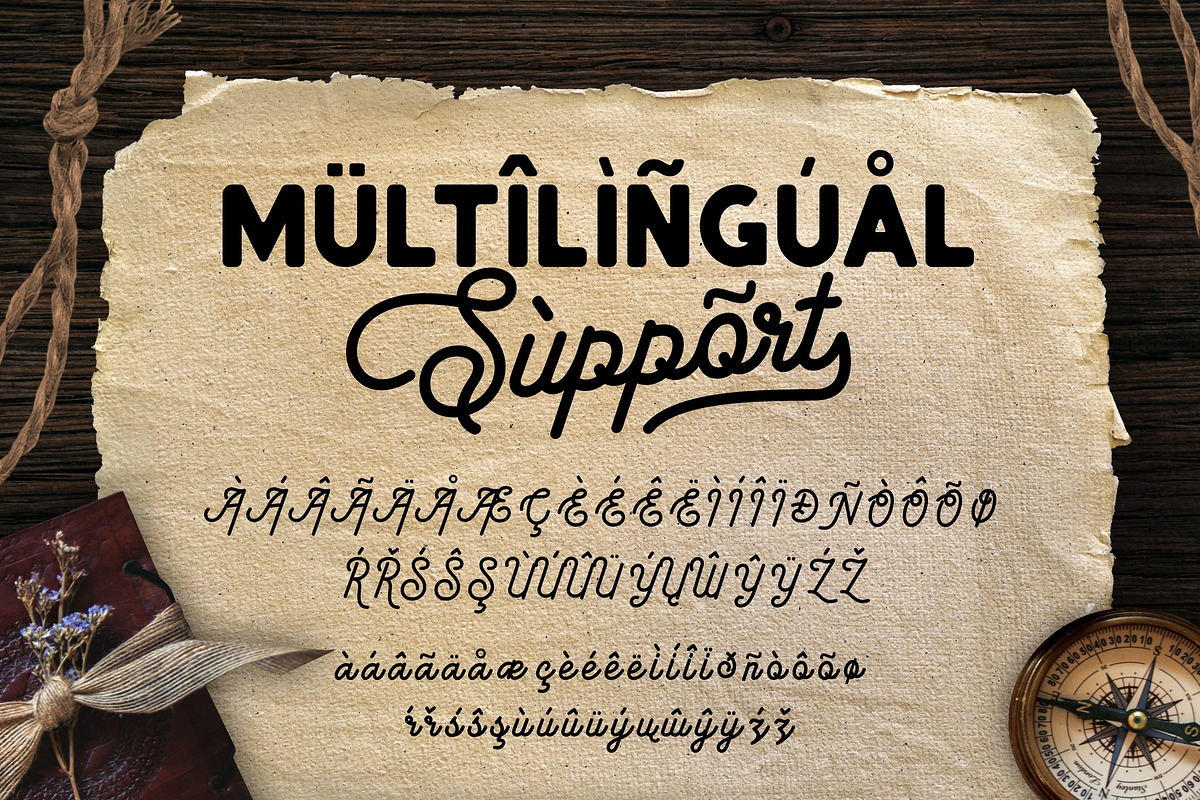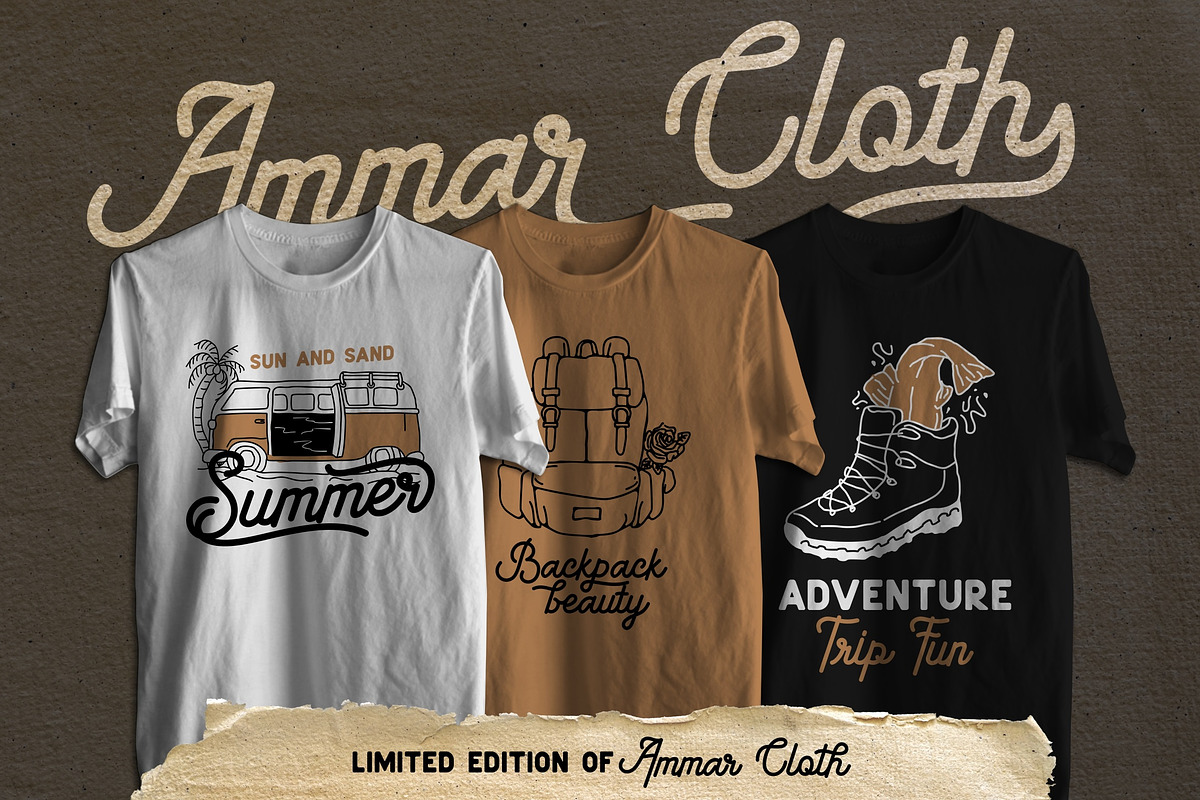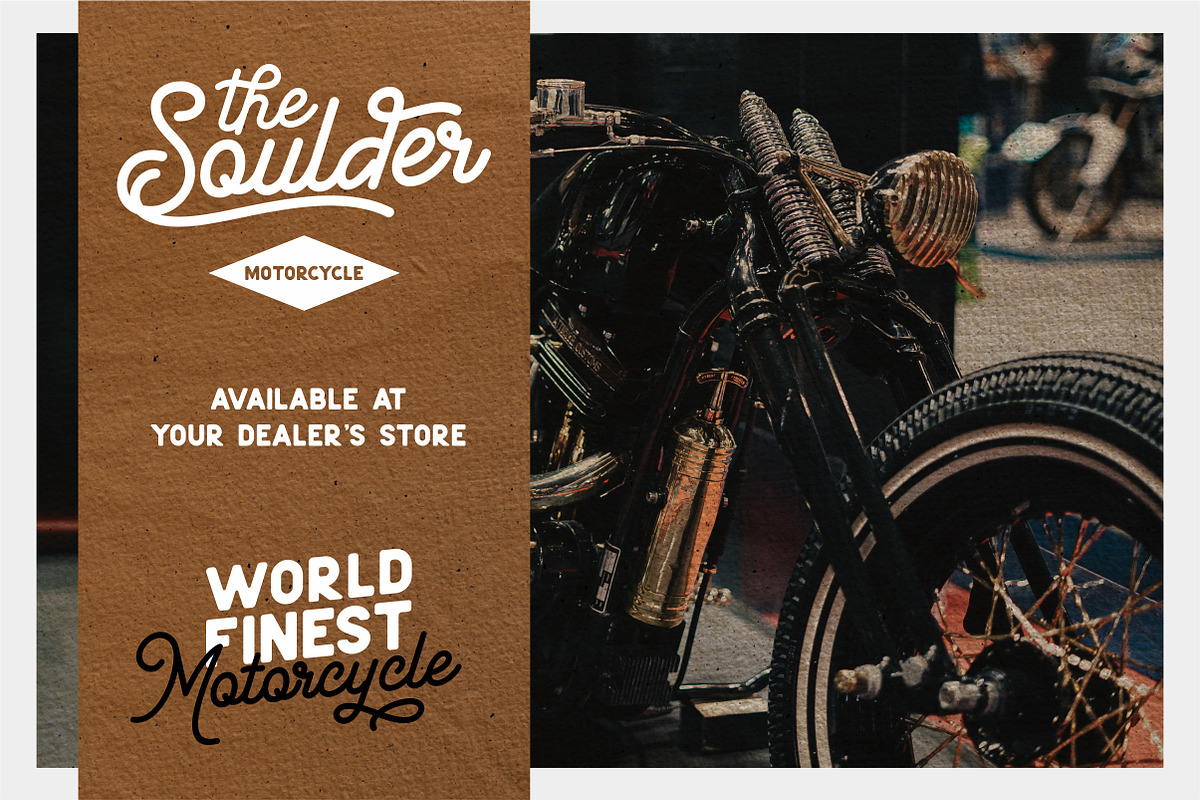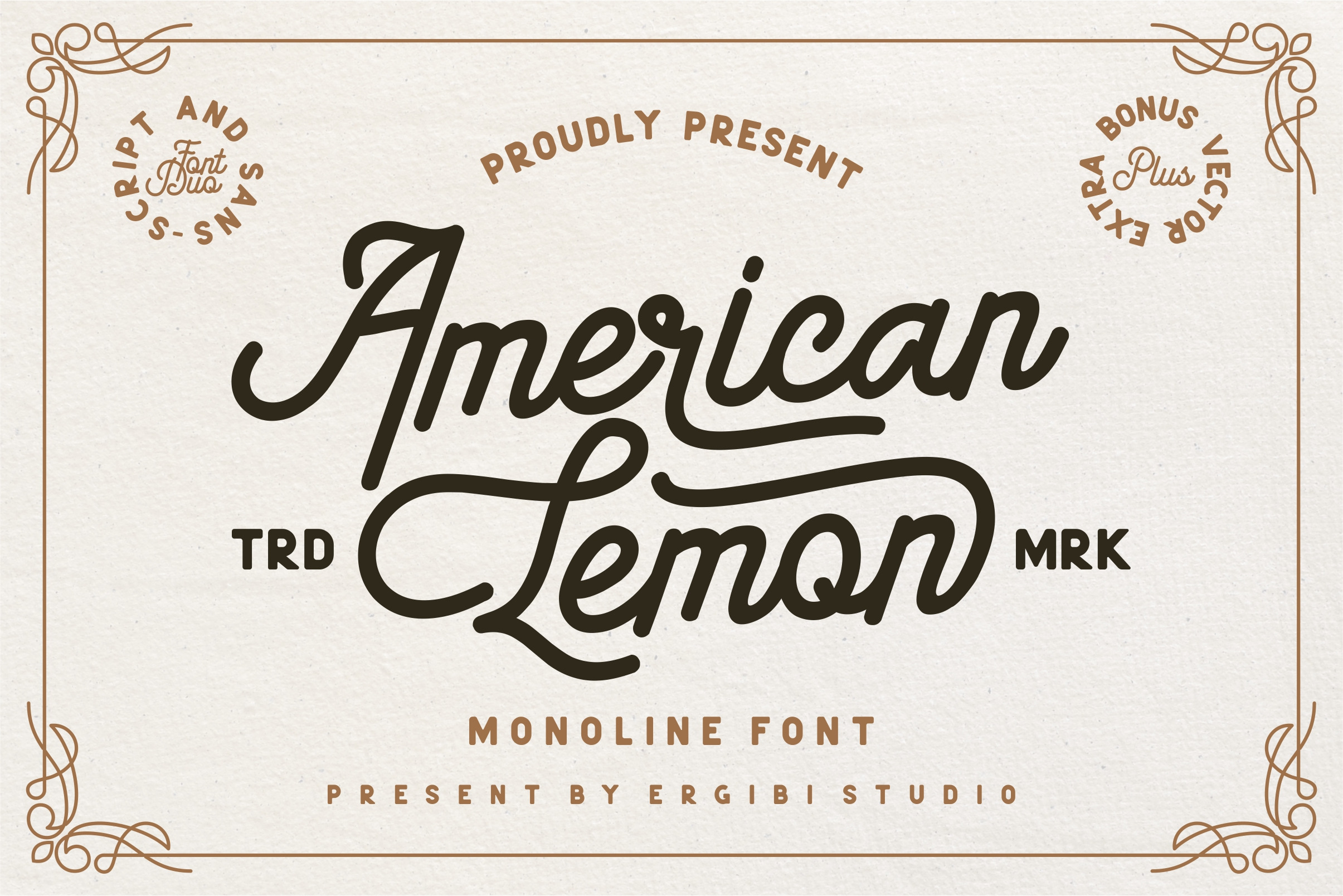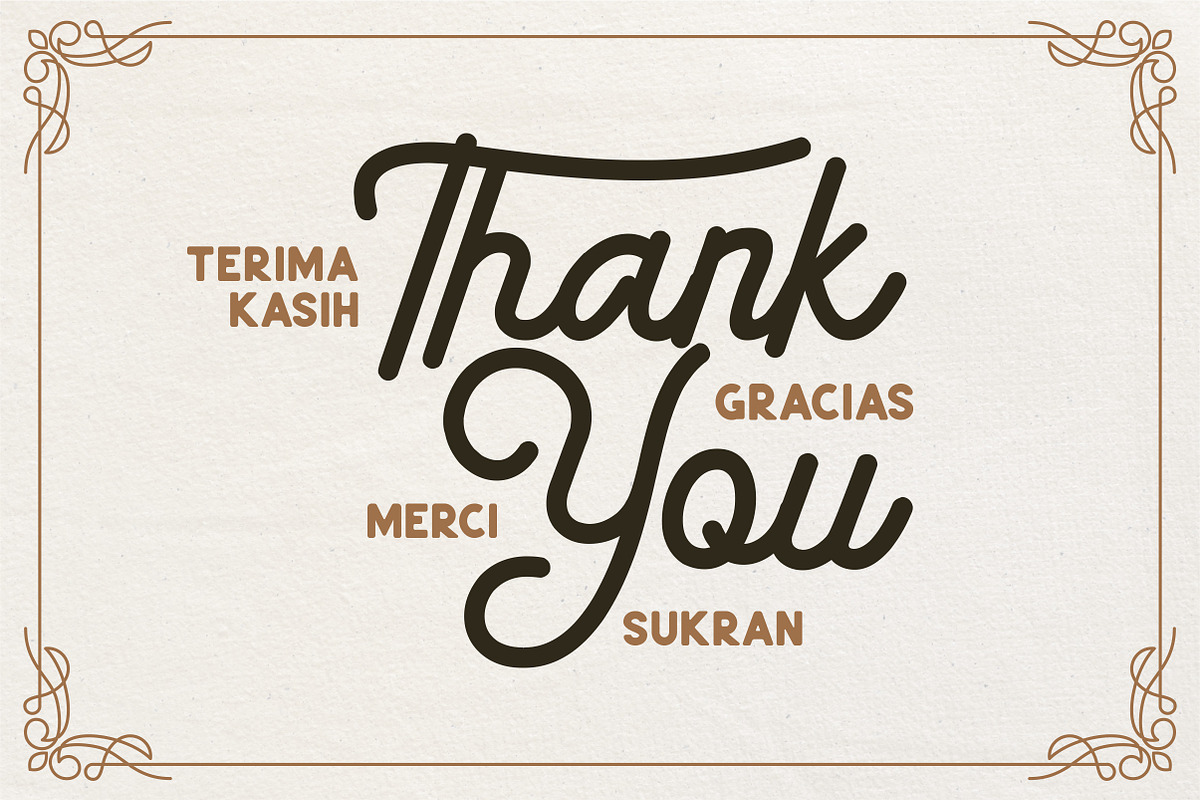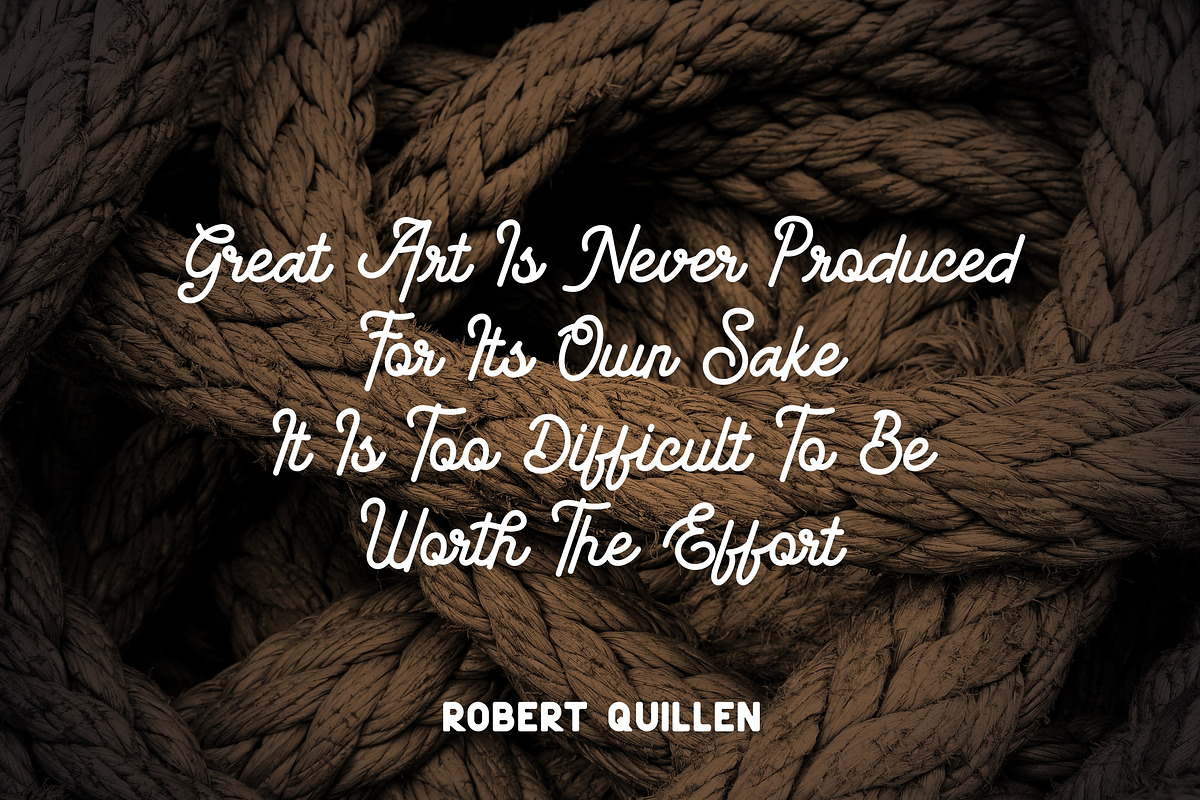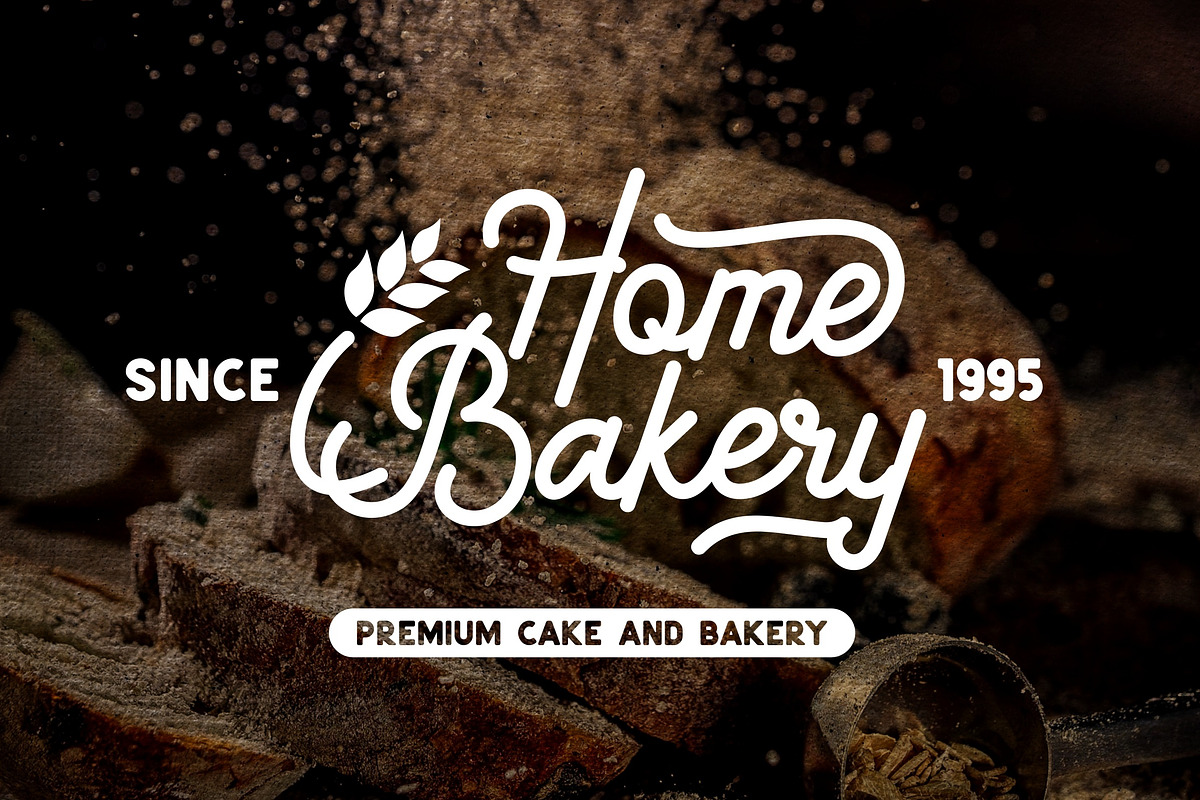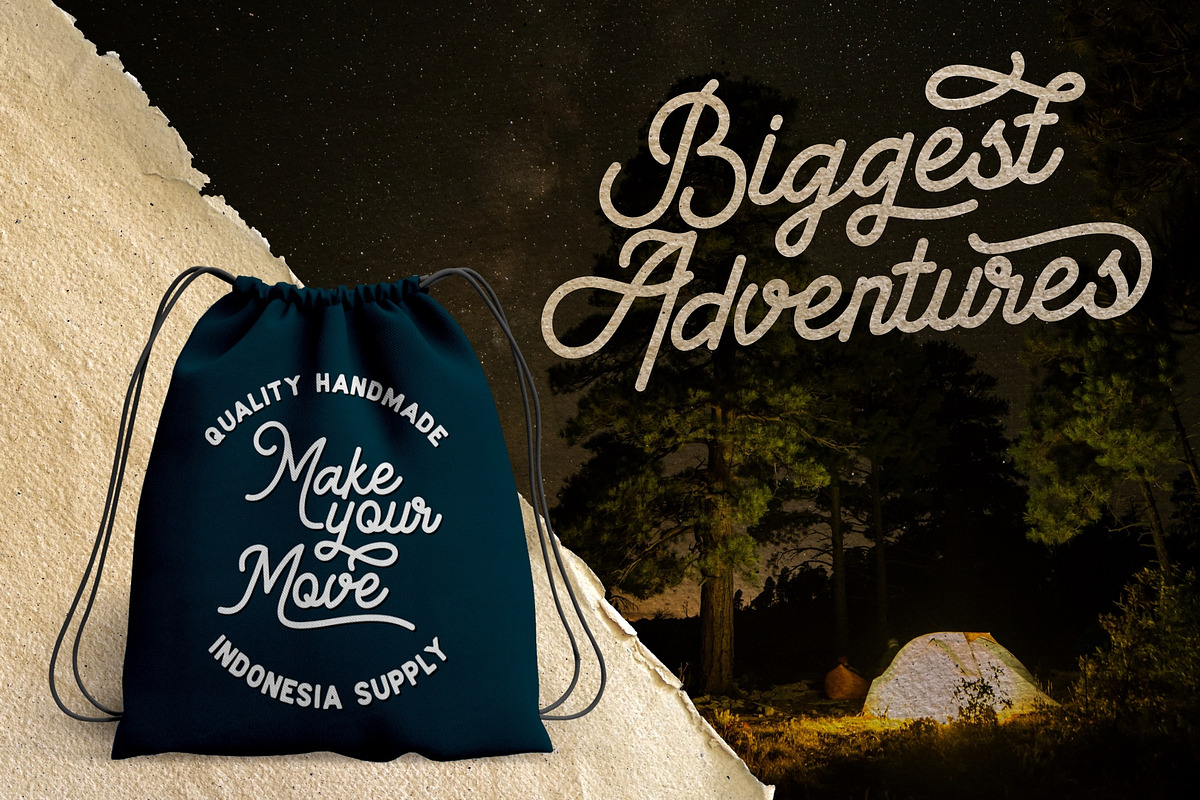
American Lemon Font Duo
American Lemon - Monoline Font Duo
American Lemon both of script and sans will match perfectly. this font perfect for logotype, apparel, branding, packaging, advertising and more. This typeface is comes in uppercase, lowercase, punctuations, symbols & numerals, stylistic alternate, ligatures, ending swashes. Also support multilingual
Ending the Swash makes it complete. It comes with several different lengths.It's easy to access swash